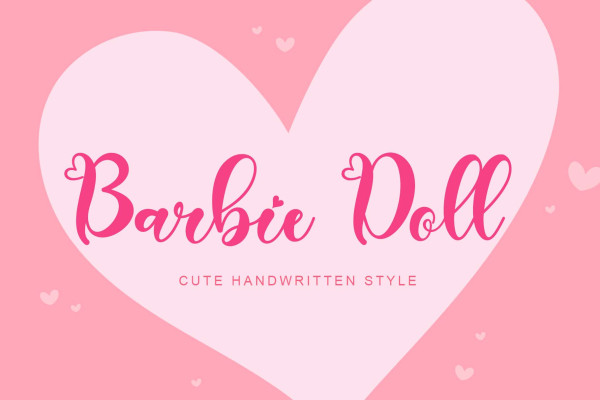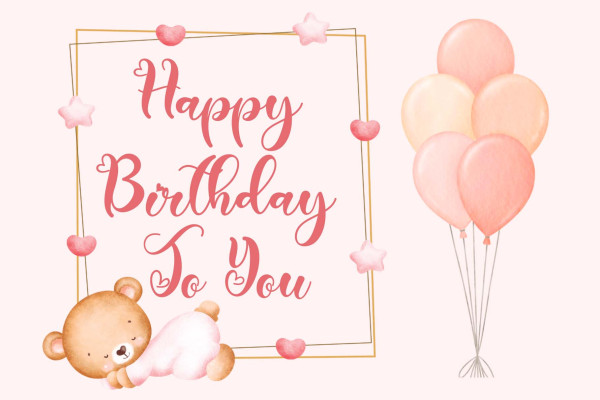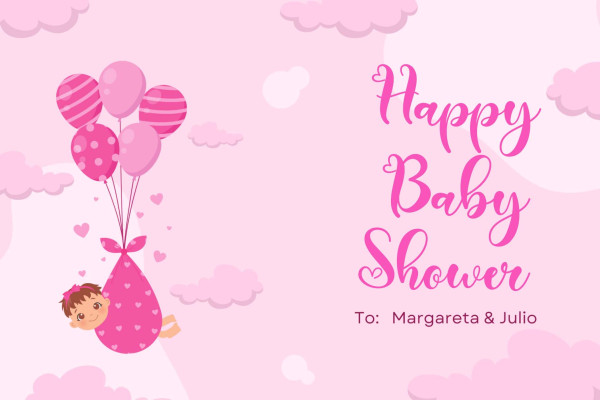
Barbie Doll Font
Barbie Doll Font is a cute and lovely handwritten font. This font is equipped with uppercase, lowercase, numerals, punctuation, ligatures, and multilingual support. It is suitable for promotion, social media, business branding, weddings, engagements, birthdays, and more.